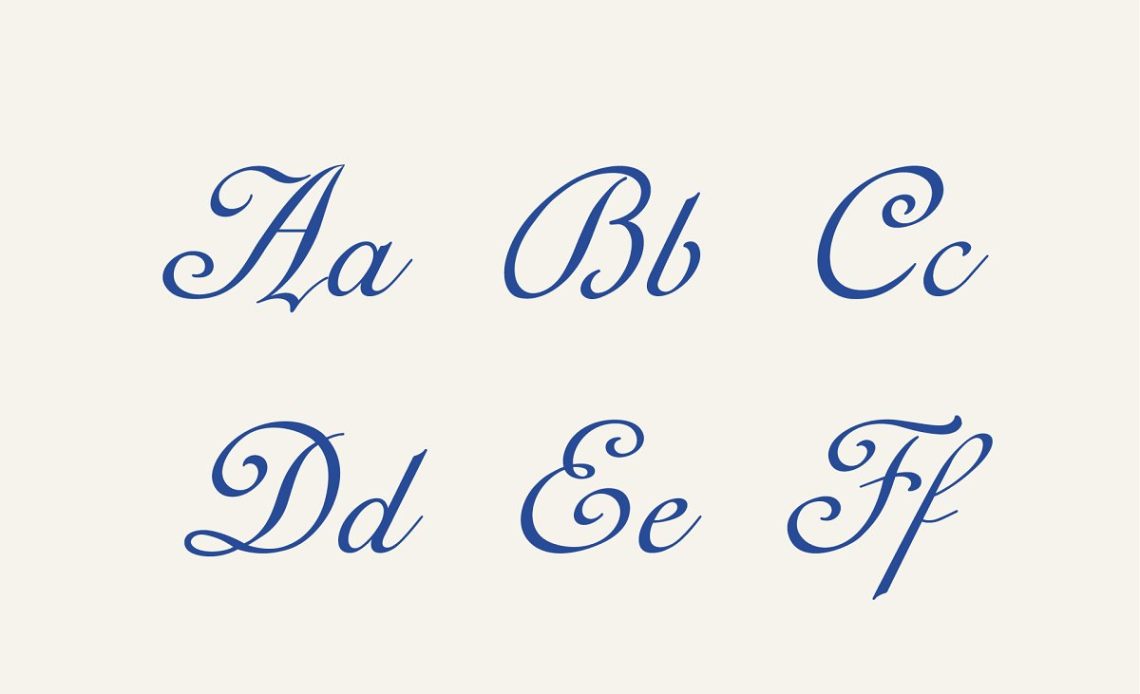
Introducing Baxter, an elegant script font that is perfect for all your logotype and display needs. Baxter is a handwriting font created by Brandon Nickerson, inspired by a vintage French type specimen, and features thin to thick contrasting lines and elegant curves that will elevate any design project.
If you're looking for the best fonts for boat lettering, Baxter is your perfect choice. Its smooth lines and curves create a sleek, sophisticated look that will make your boat stand out from the crowd. Whether you're a boat owner looking to add a personal touch to your vessel or a designer searching for the perfect font for a nautical-themed project, Baxter is the ideal choice.
But Baxter isn't just a font. It's a work of art created with love from Brooklyn 3. When you download Baxter, you'll be getting more than just a font. You'll be getting a piece of Brooklyn culture and a touch of Brandon's passion for typography. So why settle for a boring, standard font when you can have something truly unique and special?